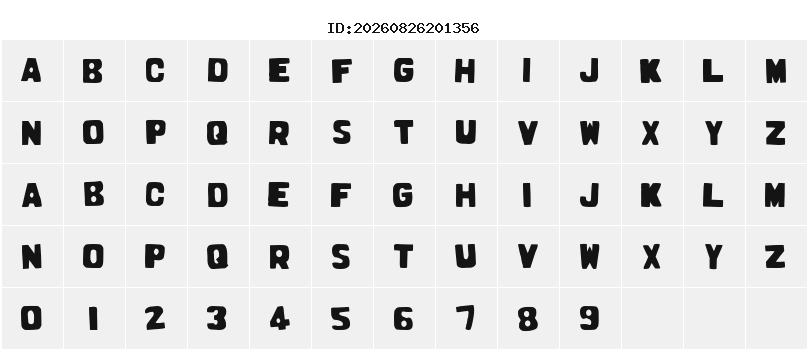
Prodotto In Cina.ttf is a modern, elegant sans-serif font designed for ultimate readability and visual harmony. Perfect for branding, headlines, web design, and print materials.